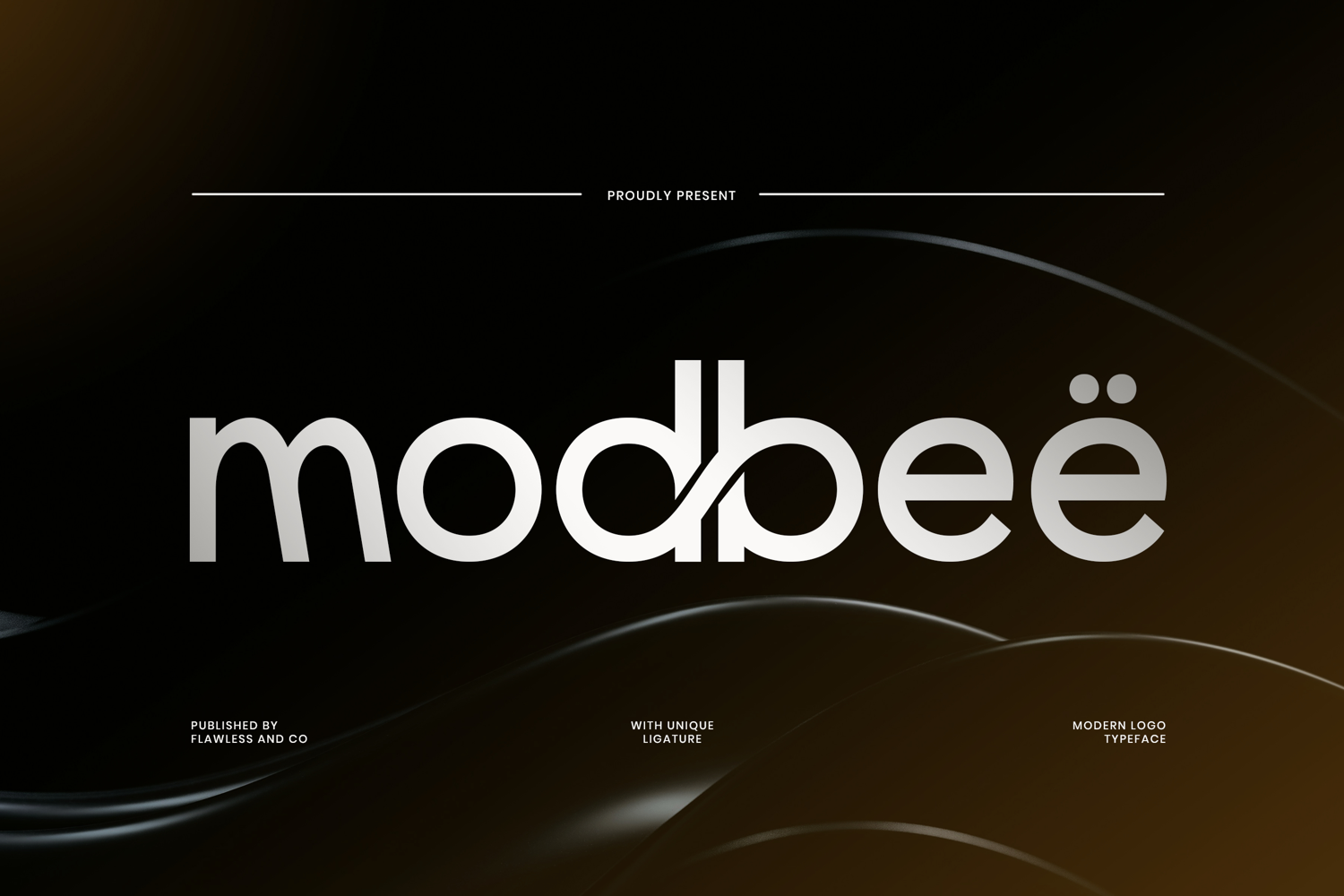
Modbee
MODBEE
Modbee – Modern Sans Serif Logo Typeface
Modbee is a sleek and modern sans serif typeface, designed with clean lines and a unique ligature style that makes it perfect for contemporary branding. Its balanced letterforms bring a sense of professionalism while keeping a creative touch, making it highly versatile for different design needs. Whether you’re working on logos, product packaging, website headers, posters, or corporate identities, Modbee delivers a modern and stylish look that elevates your design. Its minimal yet impactful design ensures that every project stands out with clarity and sophistication. If you’re looking for a modern sans serif font that combines functionality with style, Modbee is the perfect choice to strengthen your brand identity.
• Alternates & Ligatures
Who Should Use Modbee?
Modbee is designed for modern creatives, brand strategists, and professional designers who need a clean and versatile sans serif for their projects. It’s perfect for entrepreneurs, agencies, and businesses seeking a strong visual identity, as well as content creators who want a stylish yet minimalist typeface to make their work stand out.
A Must-Have Font for Brand and Logo Creators and Designers
Modbee is a must-have font for designers, branding experts, and creative professionals who want to craft impactful brand identities and modern logos. Its clean and versatile design makes it an essential tool for projects that require a balance of style, clarity, and professionalism.
Why Choose Modbee for Brand and Logo Projects?
Modbee stands out as the perfect choice for brand and logo projects because of its modern yet timeless design. Its clean lines and versatile style ensure that your logo remains professional, memorable, and impactful across all platforms. Whether you’re designing for corporate branding, creative businesses, Modbee delivers the clarity and uniqueness your brand deserves.
Suitable For:
• Brand identities and professional logo design,
• Corporate and business presentations,
• Product packaging and label design,
• Creative agency and startup branding,
• Editorial layouts and marketing materials,
• Social media graphics and digital content,
• Stationery, invitations, and projects.